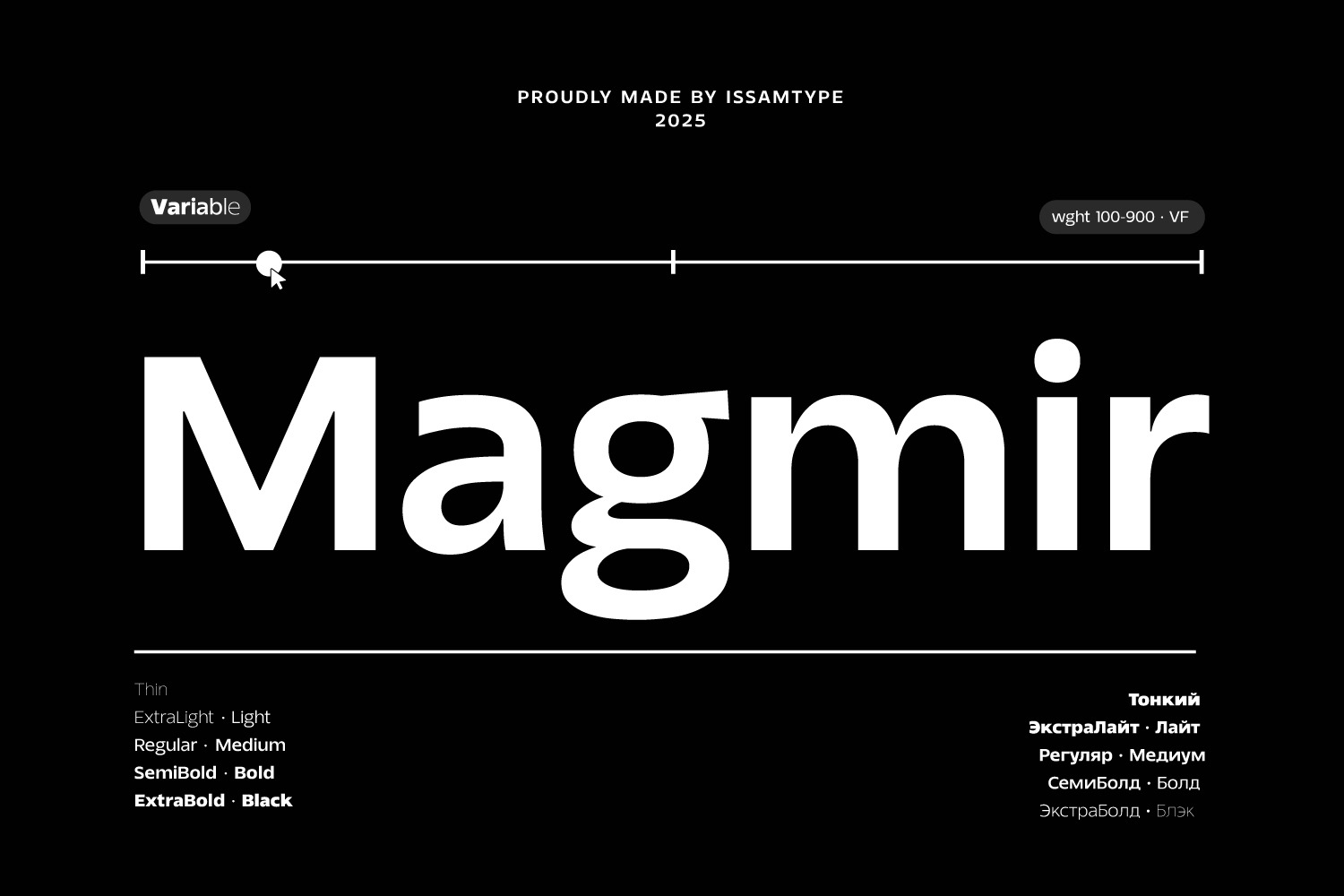
Magmir - Variable Typeface
Magmir – A modern variable sans built on clean geometry and subtle curves. Its balanced proportions and controlled rhythm allow it to transition seamlessly from the lightest, most delicate forms to the boldest, most confident strokes. Ideal for branding, headlines, editorial layouts, digital or print projects, and more, Magmir combines clarity, strength, and a polished contemporary style.
- Variable Font
- Full Weight Range: Thin, ExtraLight, Light, Regular, Medium, SemiBold, Bold, ExtraBold, Black
- Numbers, Punctuation & Symbols